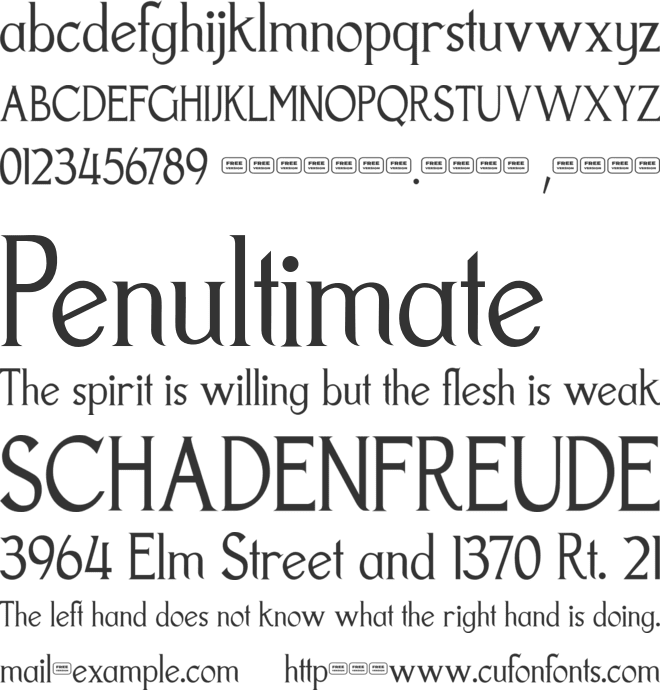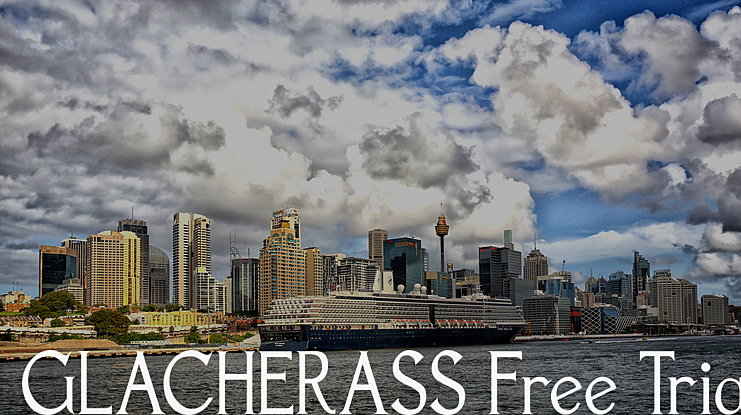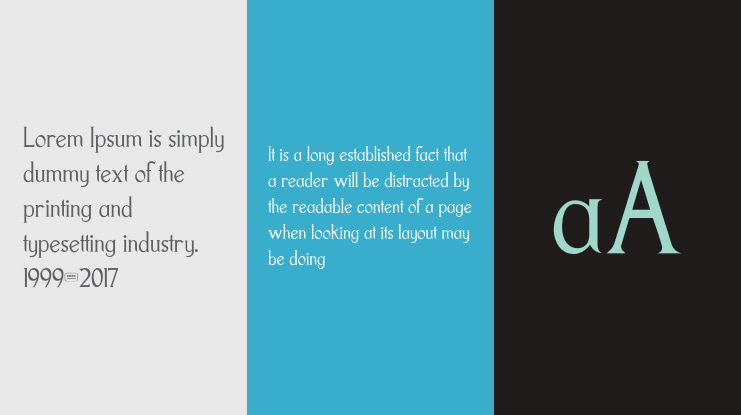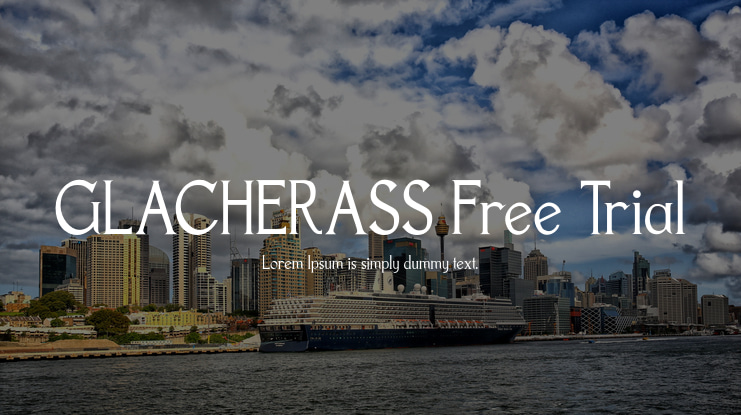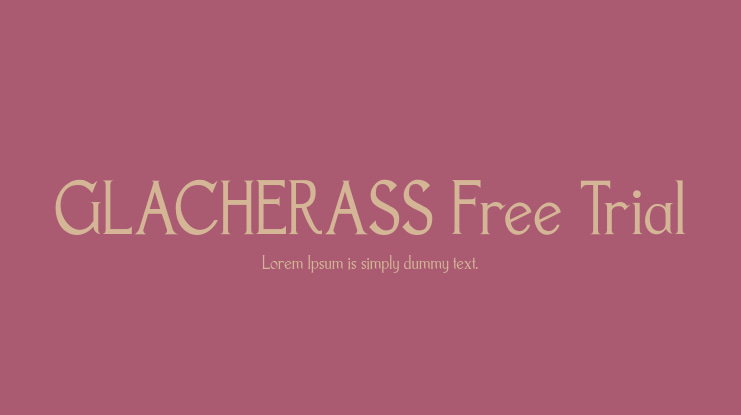
GLACHERASS Free Trial Font
Glacherass is an modern serif that blends traditional influences into a contemporary aesthetic.
Elegantly crafted and easily be matched to an incredible large set of projects.
Use this font to achieve an exquisite, yet subtle look and maximum versatility.